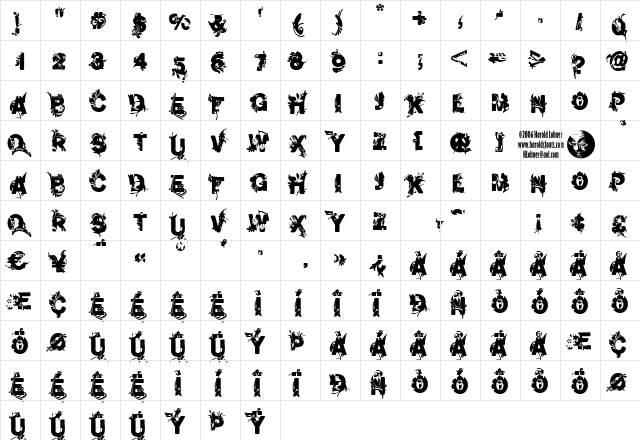
GardenFull Regular
Design Context for GardenFull Typeface
GardenFull is a composed and adaptable typeface that performs quietly and consistently across a wide range of design contexts.